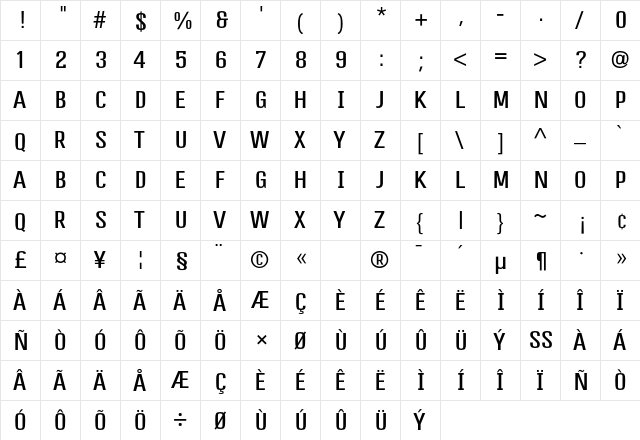
Profession Regular
| Designer | Kilian Mellbach |
Design Context for Profession Typeface
Profession offers clean, dependable letterforms without strong stylistic allegiance, making it a practical choice for designers who need flexibility.